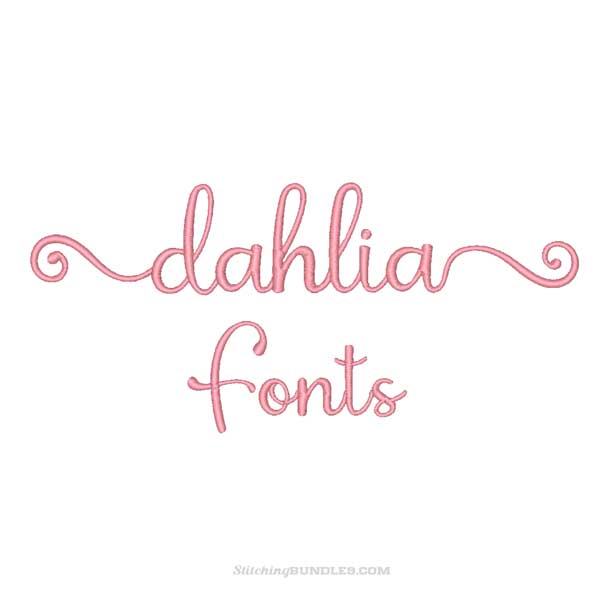
Dahlia with tails Embroidery font
6 sizes 624 Fonts
due to swatches and curves, I cannot give you the exact sizes for each letter. Instead, I included a picture for letters A a B b for all 6 sizes with exact sizes in each box. It’s best to zoom in. This will give you a better idea of the sizes.
All fonts are done in a satin fill
Dahlia with tails